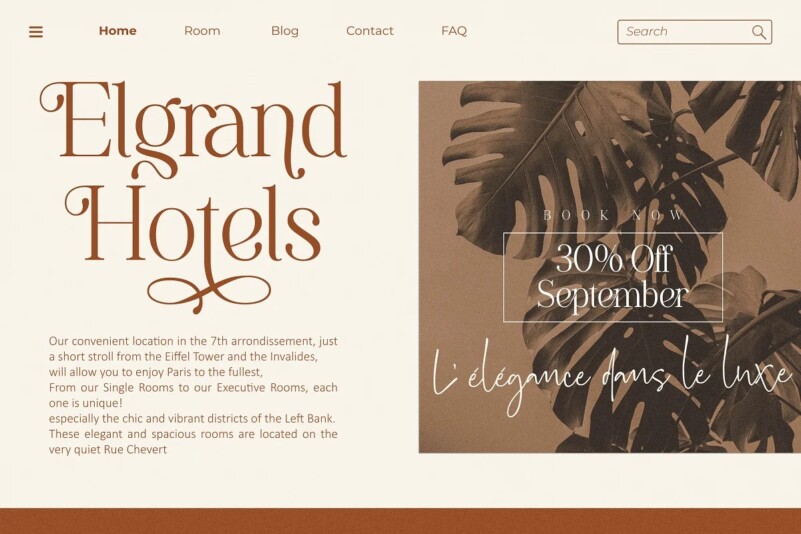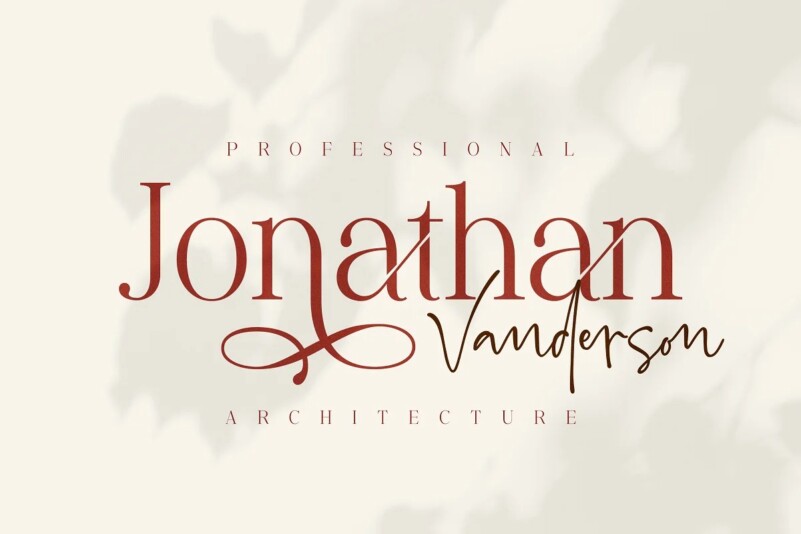
Elitista Modelista Font
Introducing Elitista Modelista – Our New Display Font Duo inspired by the famous minimalist logo, perfect for the purposes of designing templates, brochures, videos, advertising branding, logos and more